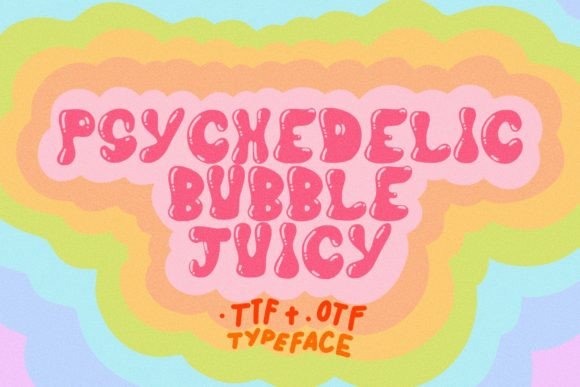
Journey through the annals of retro typography with Psychedelic Bubble Juicy, a sans-serif font that radiates character and eccentricity. Its bold letterforms dance across the page, defying convention with their playful stroke weights and whimsical serifs. This font is a veritable chameleon, morphing seamlessly into any design landscape, from logos and branding to advertising and social media.
Indulge in a kaleidoscope of creative possibilities as you unleash the power of Psychedelic Bubble Juicy. Its exuberant personality breathes life into vintage-inspired designs, adding a touch of nostalgia and charm. Dive into the depths of your imagination and let this font guide you to uncharted creative territories.
With Psychedelic Bubble Juicy at your fingertips, you'll never settle for ordinary again. Its unconventional charm captivates audiences, leaving an indelible mark on their minds. Whether you're crafting logos that demand attention or social media posts that ignite engagement, this font is your secret weapon to stand out from the crowd.
Step into a world where fonts are more than just letters – they're expressions of individuality, reflections of your unique style. Psychedelic Bubble Juicy is not just a font; it's a passport to a creative realm where your ideas take center stage. Embrace its playful spirit and watch your designs transform into masterpieces that resonate with your audience.